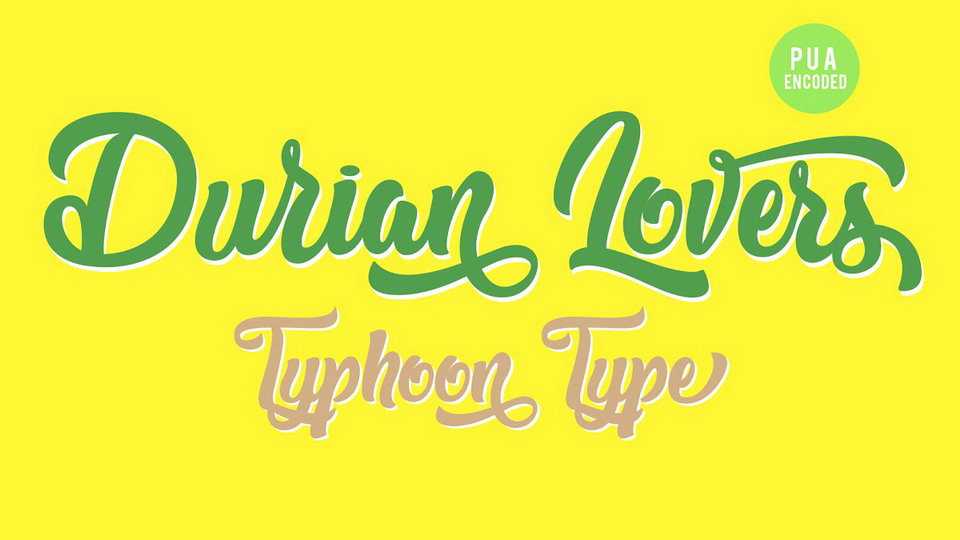
Download Durian Lovers font, a fancy hand lettered script with decorative elements. Perfect for logos, name tag, advertising, product packaging, clothing, social media & greeting cards.
Designer: TyphoonType